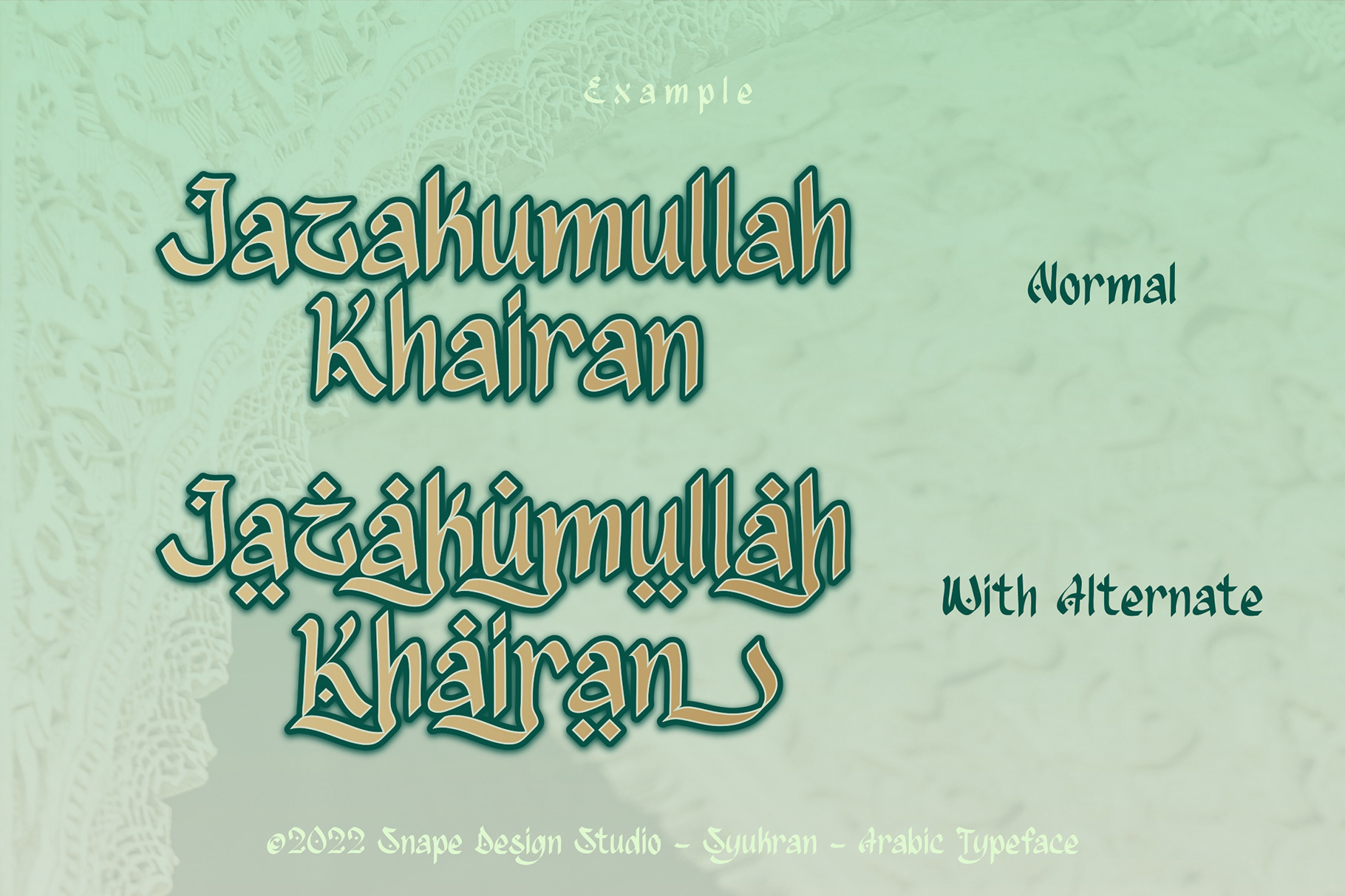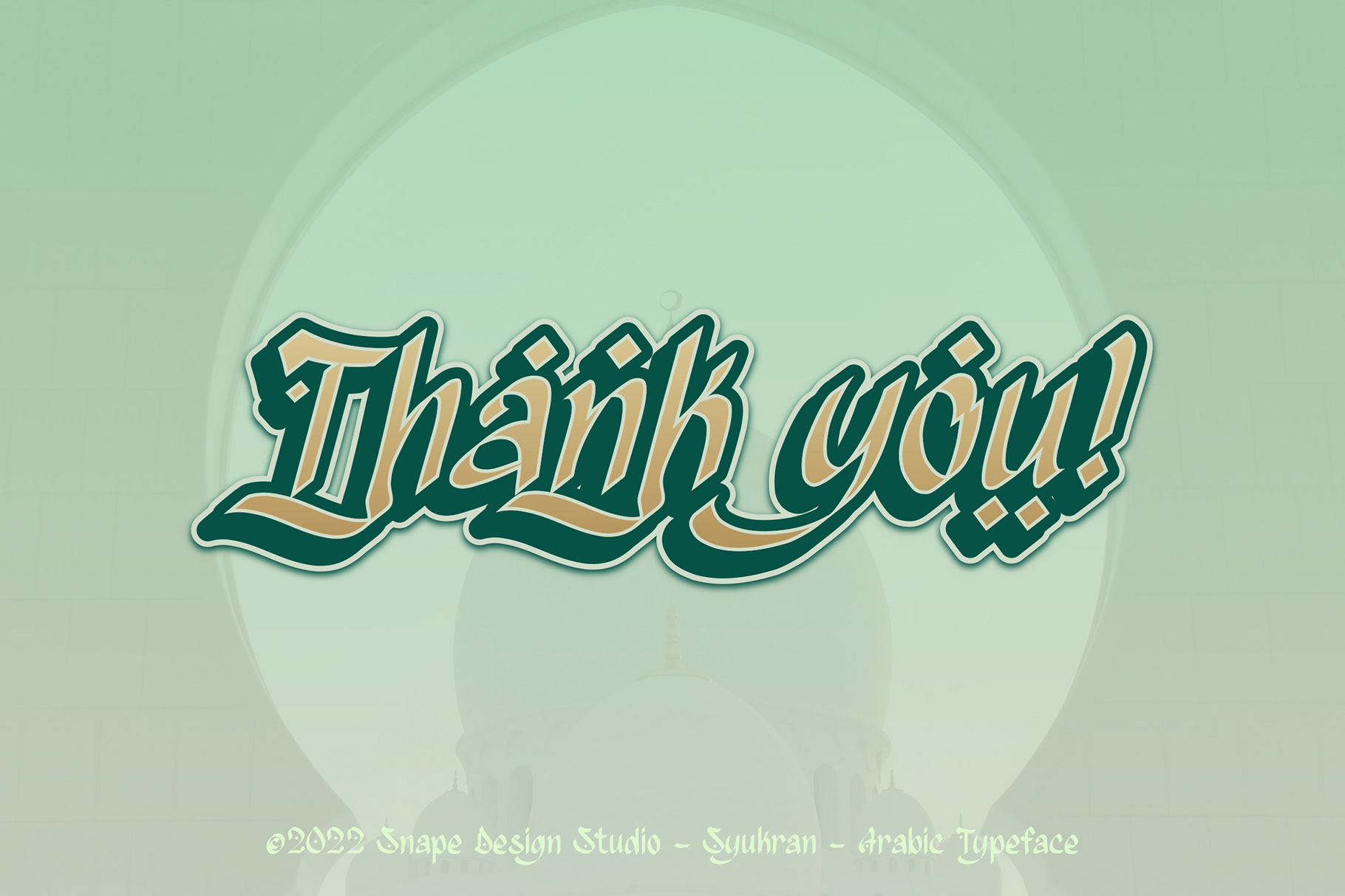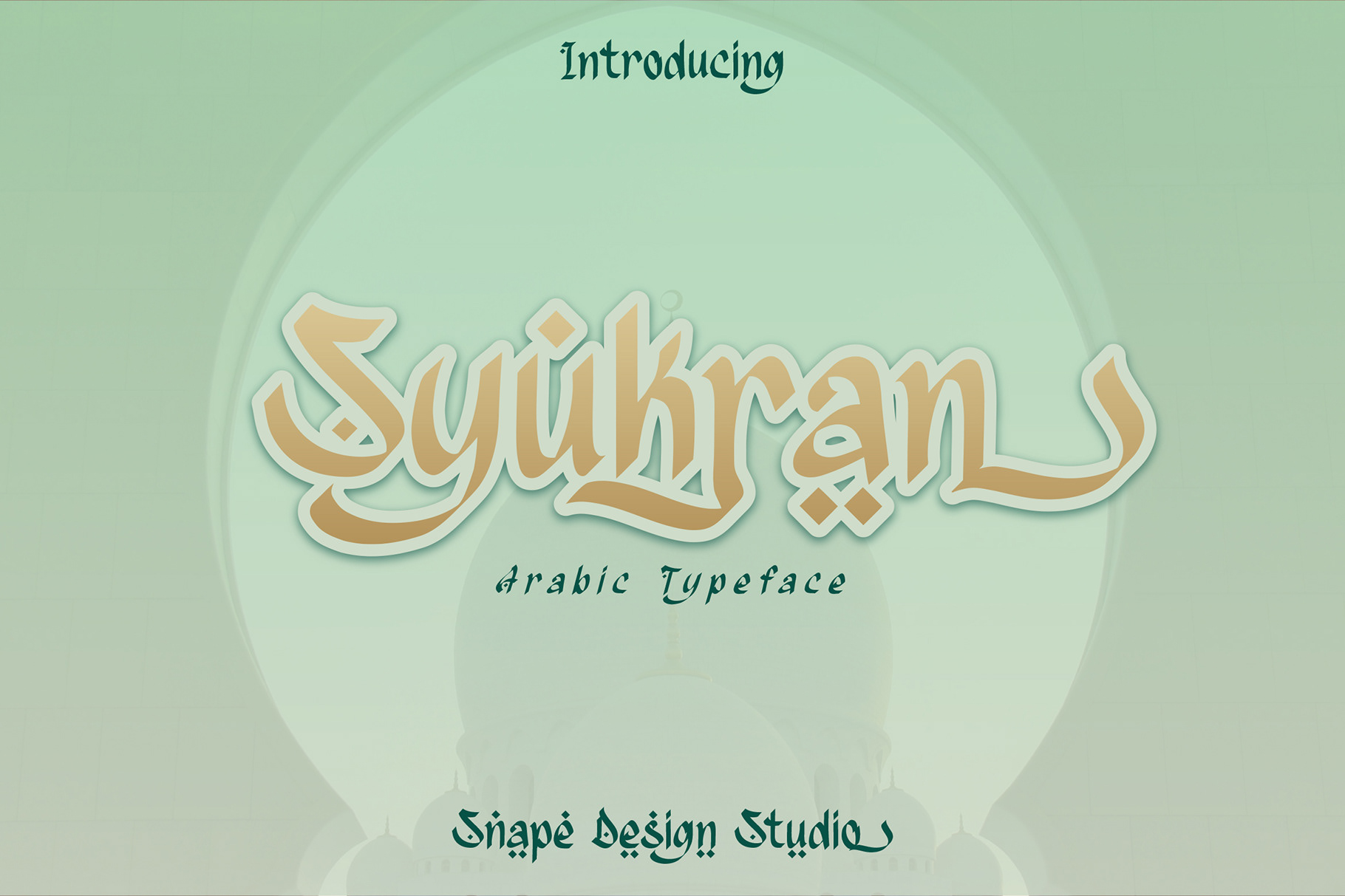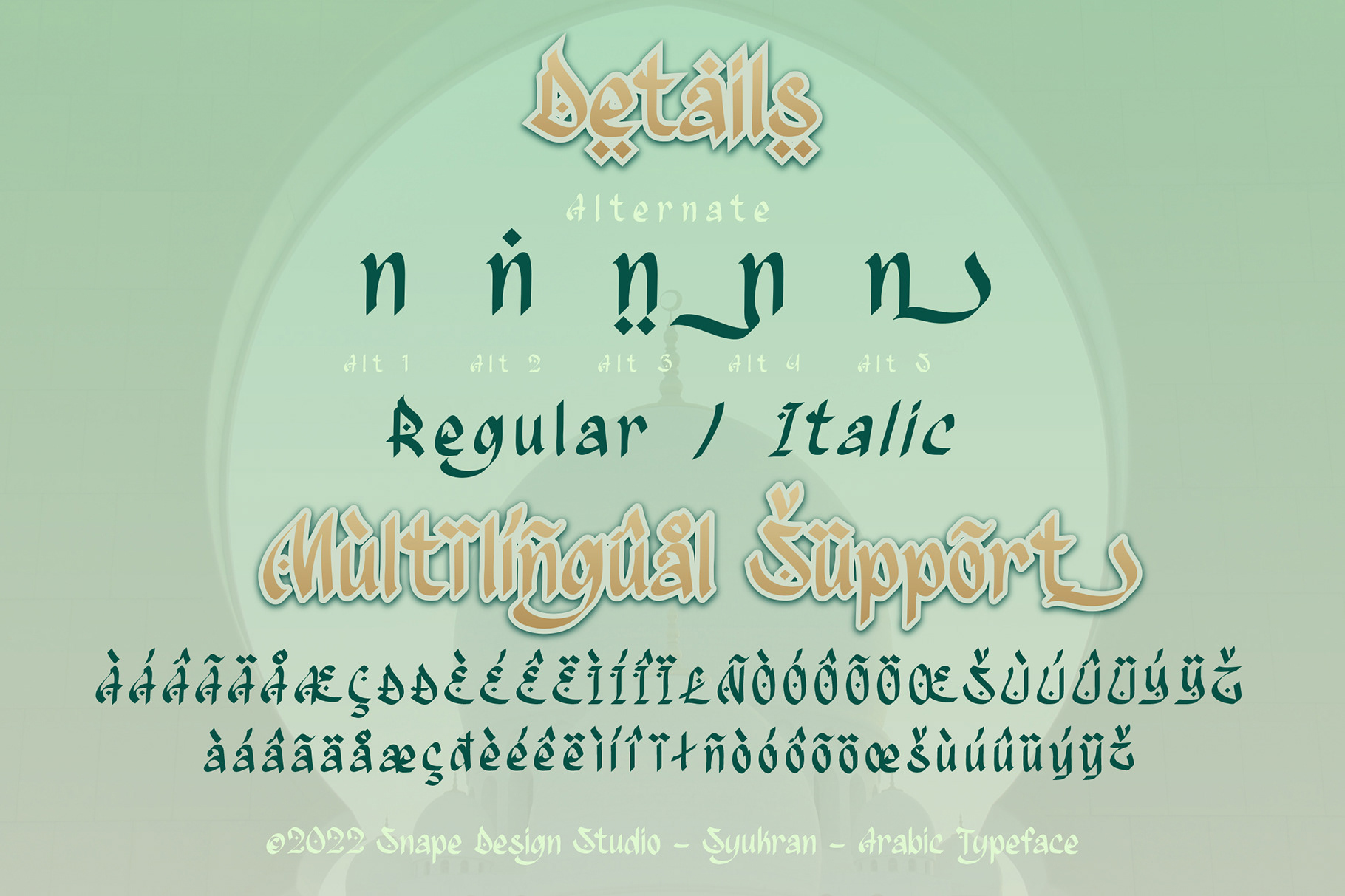
Syukran is a display font inspired by the style and feel of the Middle East Arabic, Also suitable for movie, documenter, film, logo, poster, game, book cover, headlines, title and many more projects. Add this font to your creative ideas and notice how it will make them stand out!
Syukran - Arabic Font design by Ario Sabrang Damar publish under Snape Design Studio